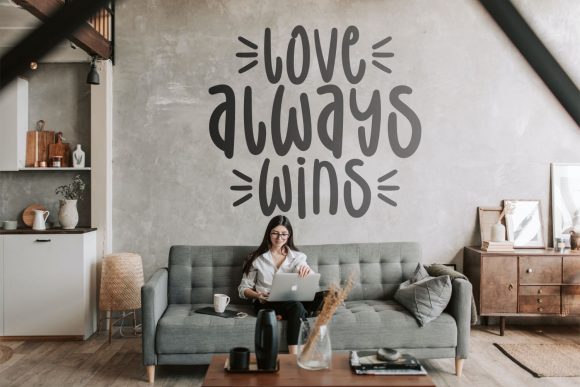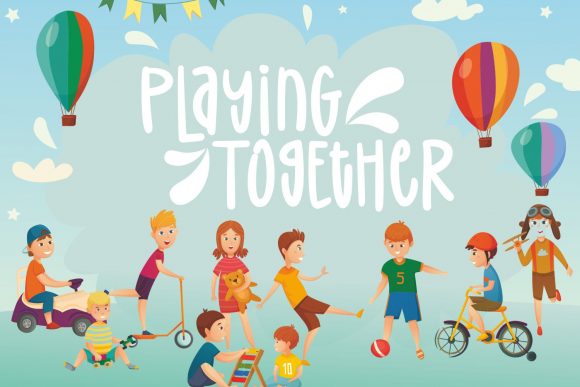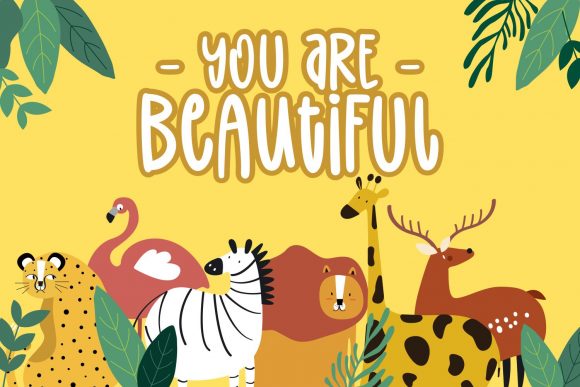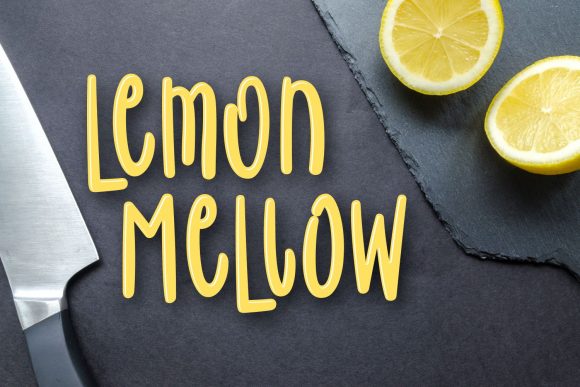
Adding a Dose of Confidence to Your Designs
We’ve all been there – staring at a blank canvas, unsure of where to start. The cursor blinks, taunting us with its silence. But then, it happens. A spark of creativity ignites, and suddenly, the ideas begin to flow. This is the magic moment that designers live for.
| 👤 Author | Rifki (7ntypes) |
It’s in these moments that we turn to the right tools to help bring our visions to life. One such tool is the Believe You Can Font, a charming display font that’s sure to brighten up your designs. With its whimsical and quirky charm, this font adds a confident touch to any project. Whether you’re working on a brand identity, a social media campaign, or a promotional poster, Believe You Can Font is the perfect addition to help you make a statement.
Key Features of “Believe You Can Font”
- Unique Characteristics: The font features a custom-designed script with a mix of cursive and handwritten elements, creating a unique and expressive feel.
- Legibility: The font is designed to be highly legible, making it suitable for body text and large blocks of text.
- Pairing Options: The font is designed to pair well with a variety of other fonts, making it easy to create visually appealing combinations.
Designer Review: Believe You Can Font
Overall, I think the “Believe You Can” font is a great addition to any design project, especially those focused on inspiration, motivation, or positivity. ✨ The font’s unique, handwritten style makes it perfect for quotes, titles, or other text that needs to stand out.
Here are some specific things that work well:
- ✨ The font’s emotional connection: The “Believe You Can” font is designed to evoke feelings of confidence and determination, which makes it a great choice for projects that aim to inspire.
- ✨ Customizability: The font comes in a range of weights, making it easy to customize the look and feel to suit your design needs.
- ⚠️ Limited legibility: The font’s unique style can make it difficult to read in certain contexts, especially at small sizes or in complex layouts.
- ⚠️ Limited character set: The font only includes a limited character set, which may not be suitable for projects that require a wide range of languages or characters.
Overall, I think the “Believe You Can” font is a great choice for designers looking to add a touch of inspiration and motivation to their projects. With its unique style and customizability, it’s a great option for titles, quotes, and other text that needs to stand out.
To get the most out of Believe You Can Font, use it in bold and italic styles to add emphasis to your text. You can also pair it with other fonts to create a visually appealing design.
Believe You Can Font is perfect for motivational quotes, inspirational posters, and social media graphics. It can also be used in presentations and reports to add a touch of professionalism and motivation.